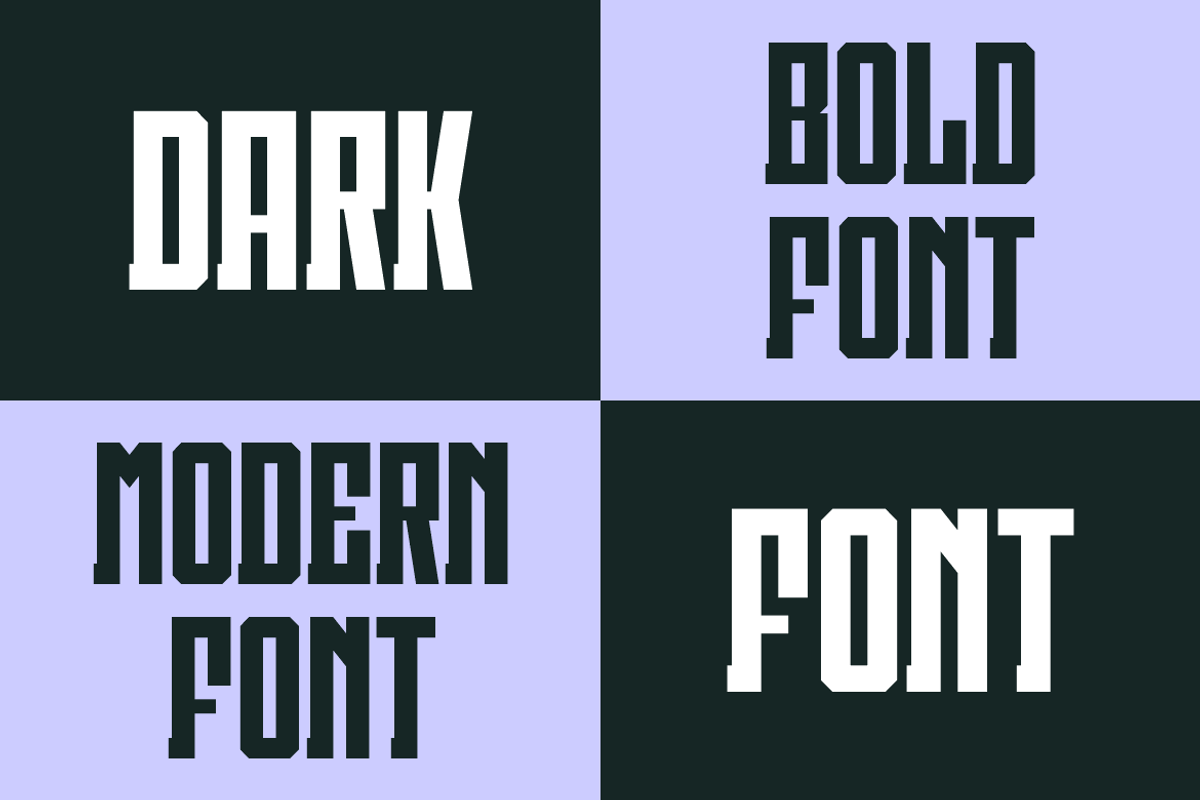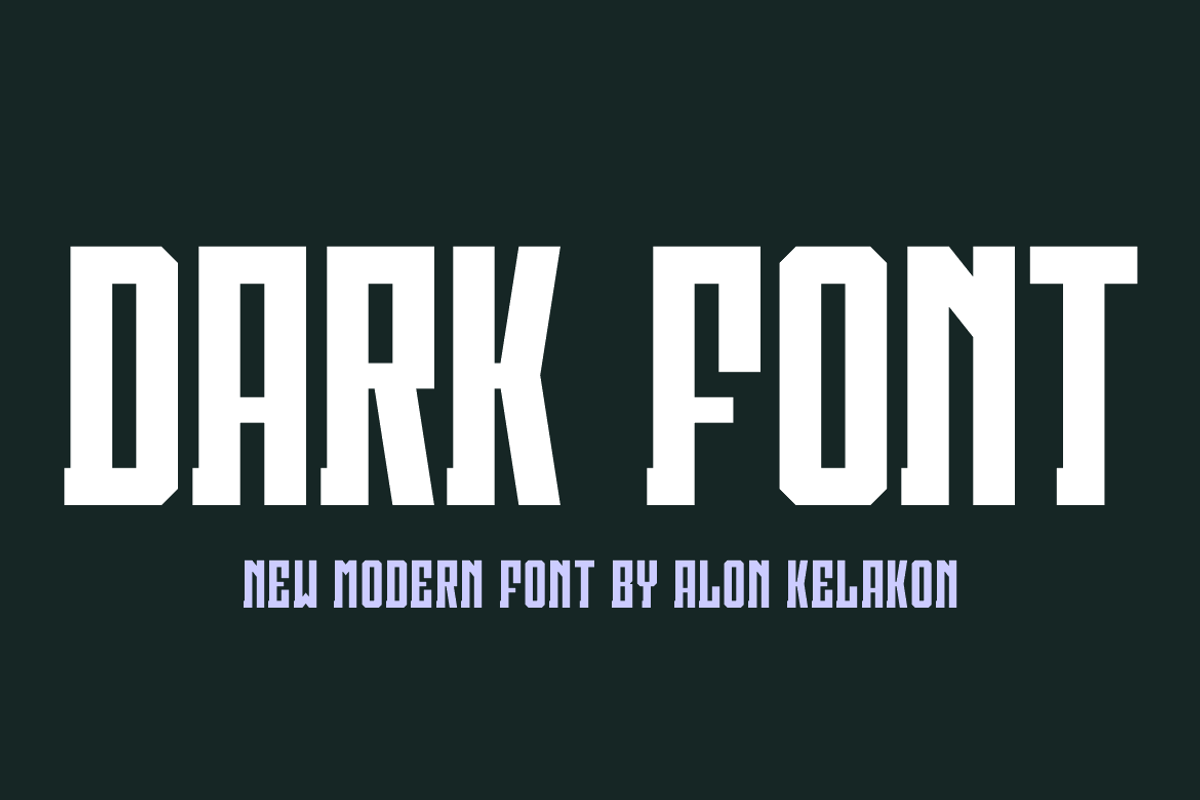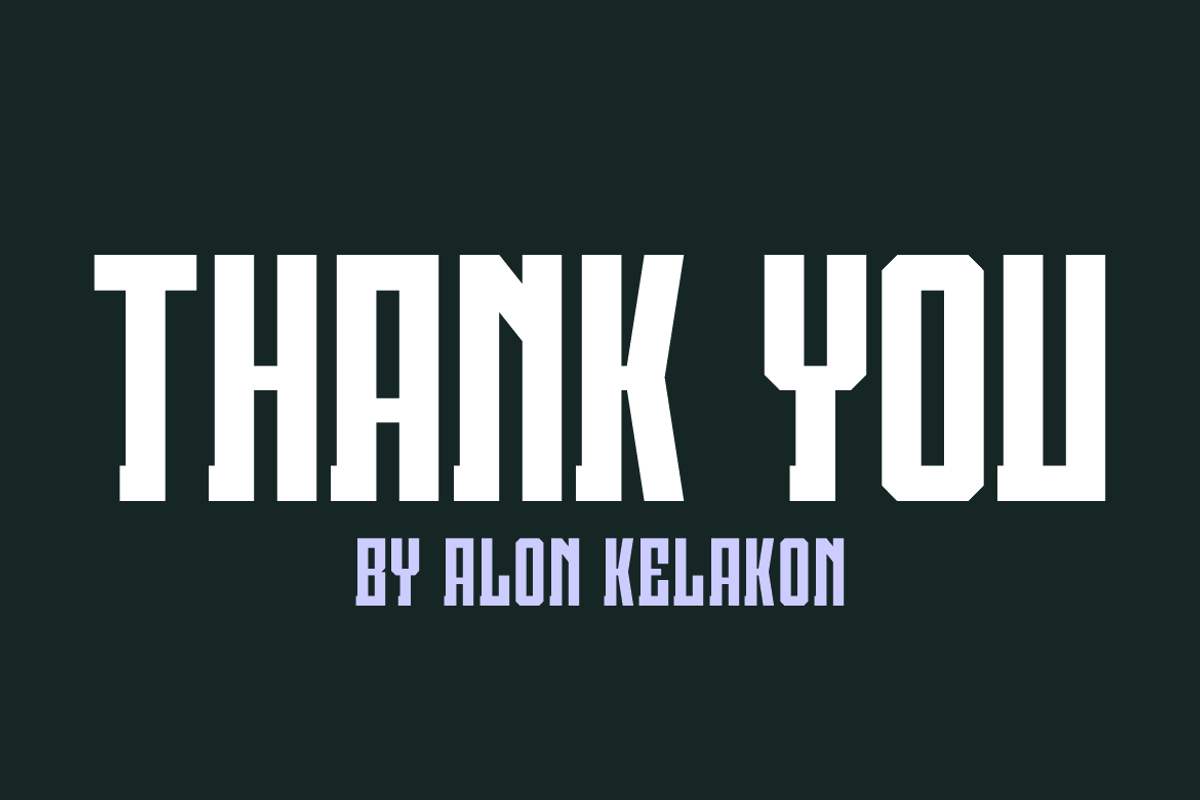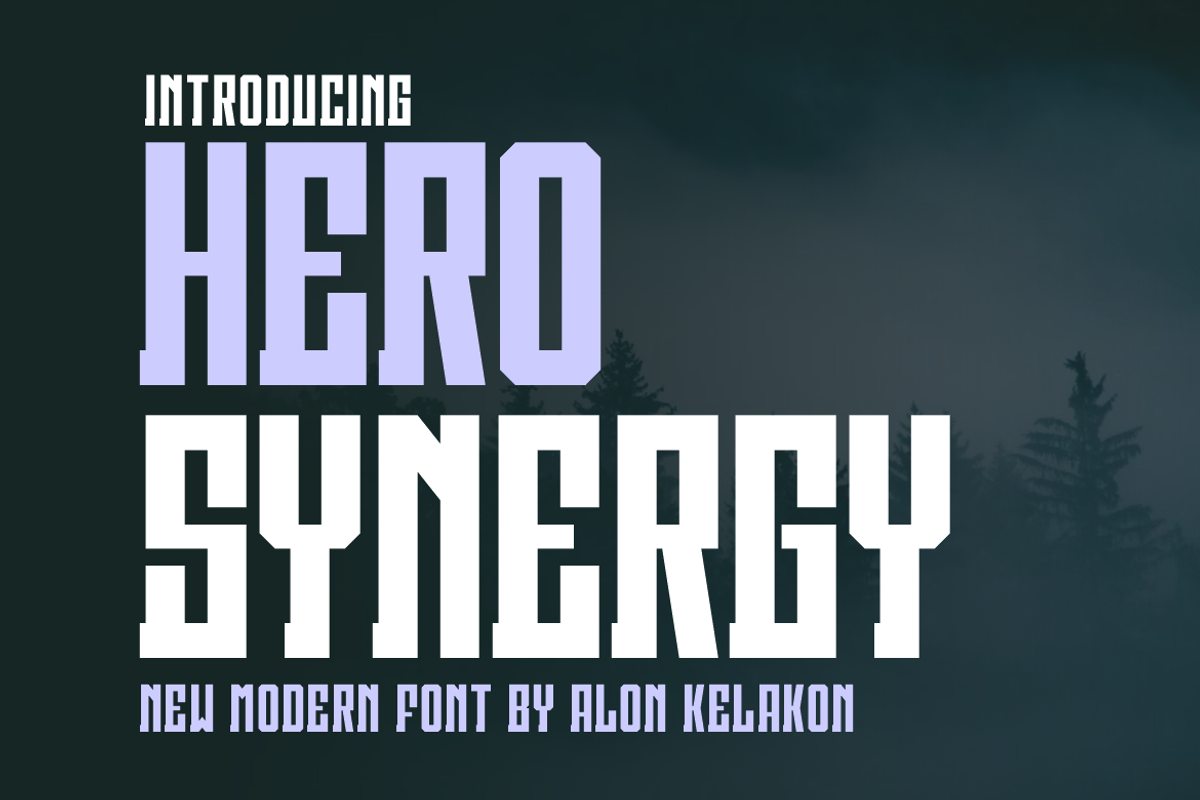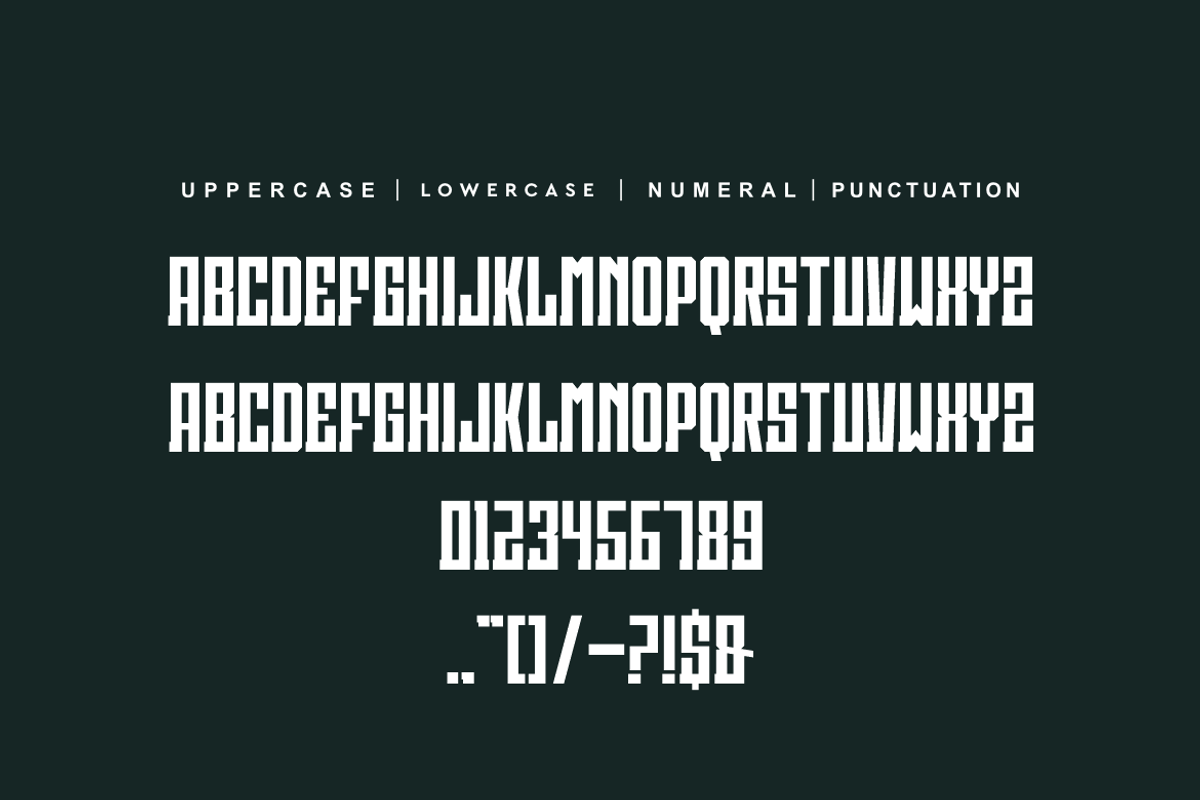
Hero Synergy
Hero Synergy Font is unique . Ready to use for your design like labeling, clothing, movie sceen, poster, movie title, gigs, album covers, logos, and much more.